Athelas in use in Gutes tun oder es besser lassen
Athelas, designed by José Scaglione, has been used in the Swiss publication “Gutes tun oder es besser lassen?”, a non-fiction book about philanthropy.
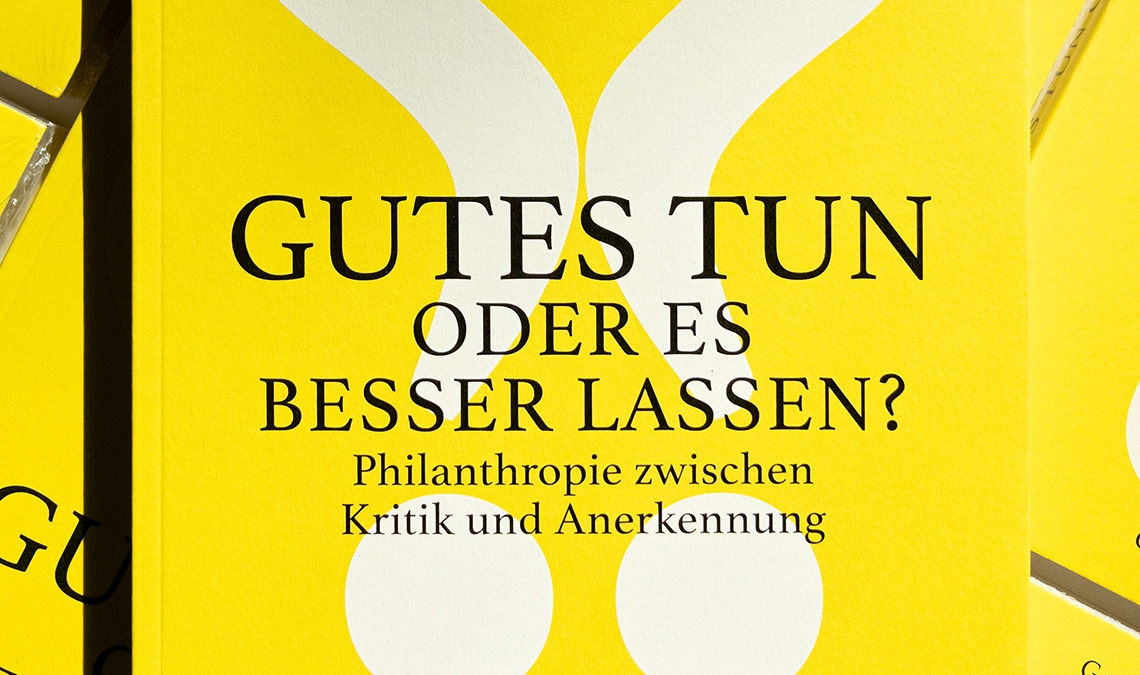
Athelas, designed by José Scaglione, has been used in the Swiss publication “Gutes tun oder es besser lassen?”, a non-fiction book about philanthropy.
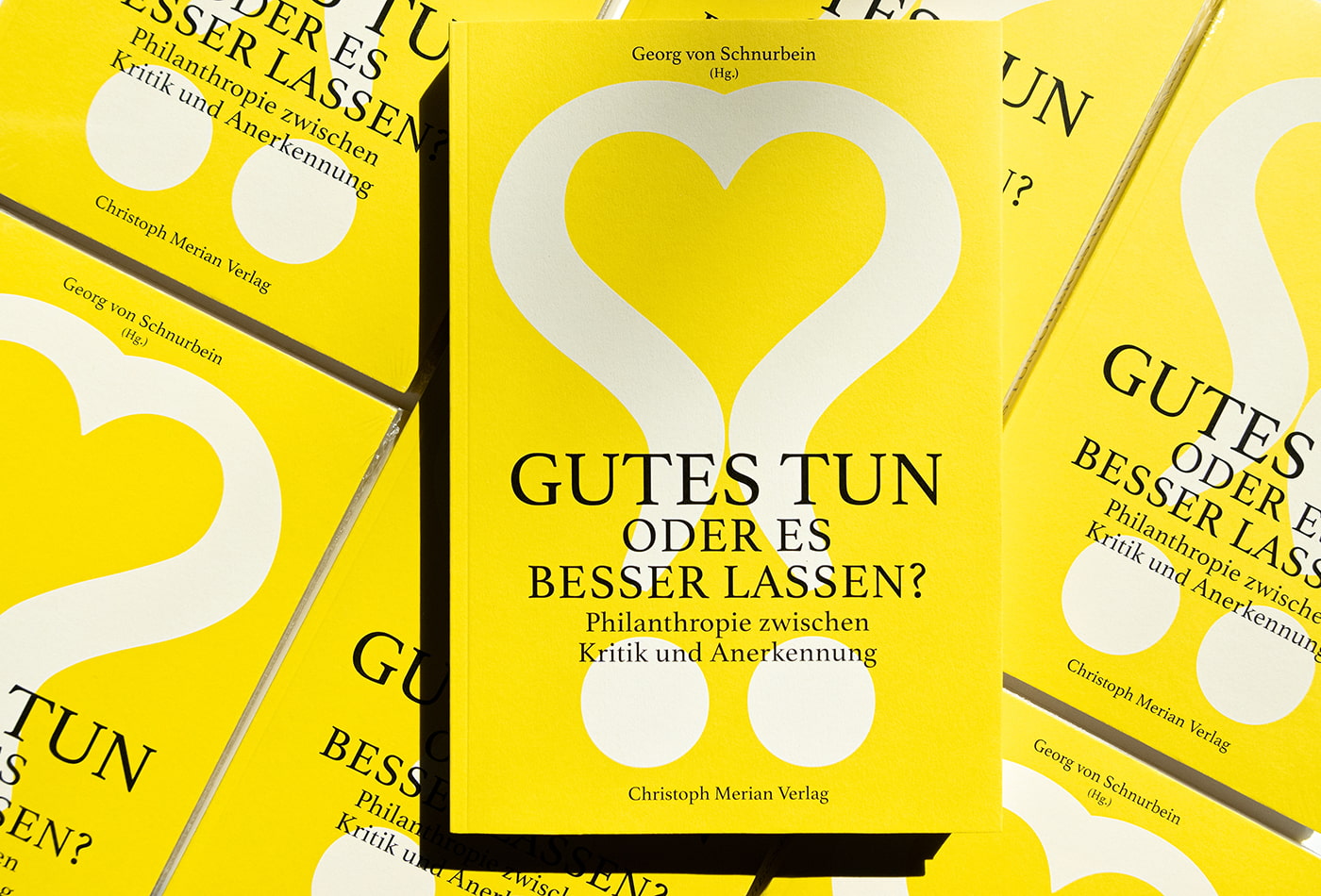
The  publication Gutes tun oder es besser lassen?  (loosely translated as “Doing good or better leave it? Philanthropy between criticism and praise”) is a compendium of essays that analyses the concept of philanthropy — the positive, beneficial actions of individuals for a charitable purpose — and its place in today’s modern and democratic societies.
The book was edited by Georg von Schnurbein, professor of foundation management and founding director of the Center for Philanthropy Studies (CEPS) at the University Basel, and was published in 2023 by the Swiss publishing house Christoph Merian Verlag.
Res Eichenberger Design, an independent graphic design consultancy specialising in fine books, posters, and brand identities, was in charge of designing the book, and he choose Athelas as the sole typeface for this task. As an exercise of restraint, the book only uses a single Regular and Italic style, breathing a wonderful aesthetic texture onto the page in Eichenberger’s expert hands.
However, finding the right typeface was not a simple job as Eichenberger explains. “The search for the right typeface started when the idea for the cover was born. I looked through hundreds of typefaces to find the most beautiful question mark that can be mirrored to create the perfect shape of a heart without manipulating the curves. Furthermore, the proportion of the question mark had to be ideal for the cover. At the same time the typeface also had to be the right choice for all texts and charts in the book. Athelas was the right answer — Athelas actually did it!”
Inspired by Britain’s classic literature, Athelas is an elegant book font family for screen and print. It takes full advantage of typographic tranquility and breathes peacefully on the page to usher the reader into the wordsmith’s art.